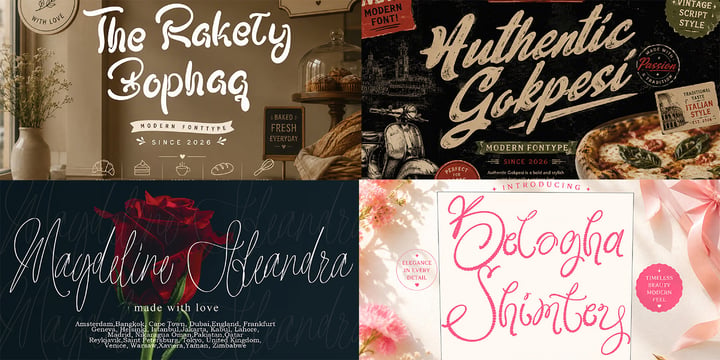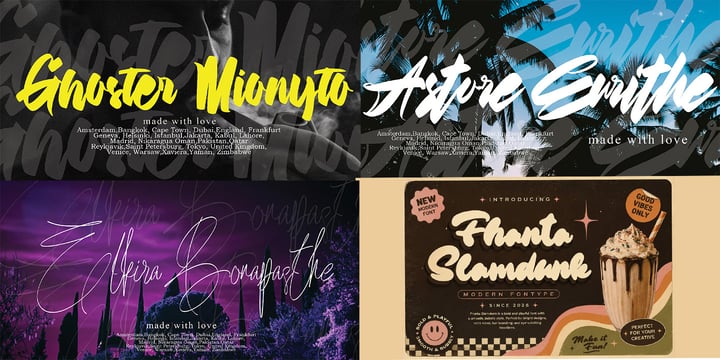
The Handwritten Font Library 35 Premium Fonts
The Handwritten Font Library — 35 Premium Fonts
Bring a personal, creative, and authentic touch to your designs with The Handwritten Font Library, a collection of 35 premium handwritten fonts carefully created for designers, crafters, and creative professionals.
From elegant branding and stylish logos to social media posts, invitations, packaging, quotes, merchandise, and everyday creative projects — this versatile font collection gives you plenty of options to create beautiful and memorable designs.
✦ WHAT'S INCLUDED
• 35 Premium Handwritten Fonts
• A variety of unique handwritten styles
• Perfect for branding & logo design
• Great for social media & content creation
• Perfect for invitations & stationery
• Ideal for packaging, merchandise & crafts
• Suitable for quotes, posters & advertising
✦ PERFECT FOR
Branding • Logos • Invitations • Stationery • Social Media • Posters • Packaging • T-Shirts • Merchandise • Cricut Projects • Digital Products • Creative Typography
Whether you're a professional designer or a creative maker, The Handwritten Font Library gives you 35 distinctive fonts to help bring personality and character to your projects.
35 fonts. Endless creative possibilities.